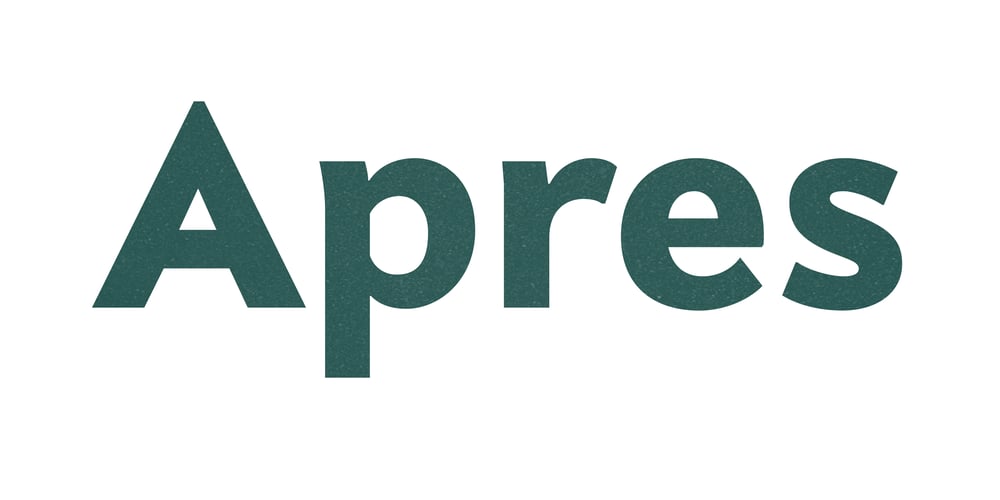
Apres
Apres font
Apres Font Family was designed by Richard Lipton, David Berlow, Dyana Weissman and published by Font Bureau. Apres contains 40 styles and family package options. David Berlow and staff drew Apres as part of a series designed originally for the Palm Pre smart phone, for use both on the device and in print marketing. Simple, open letterforms and generous proportions provide a clear, comfortable, and inviting experience for navigation and readability. The plain-spoken geometry is regular and balanced, without being static or mechanical, for a friendly and forthright familiarity; FB 2008